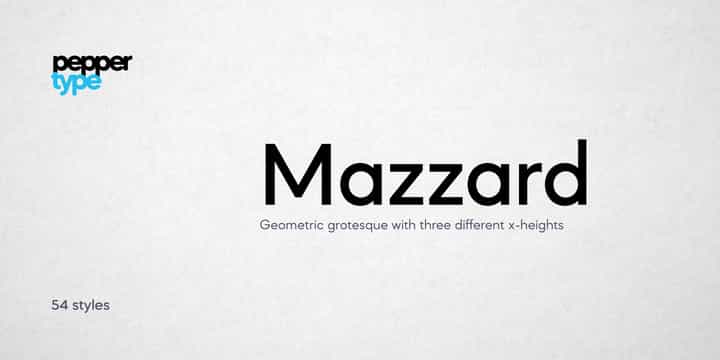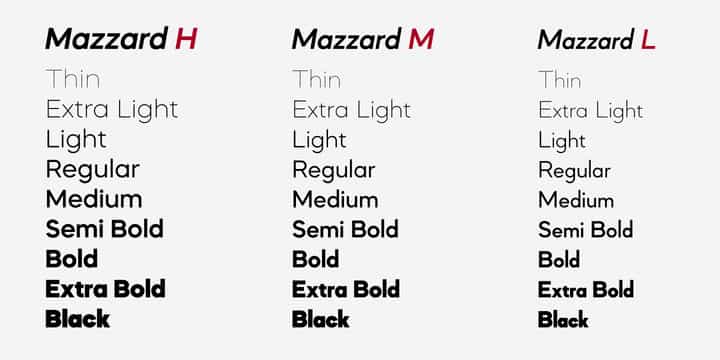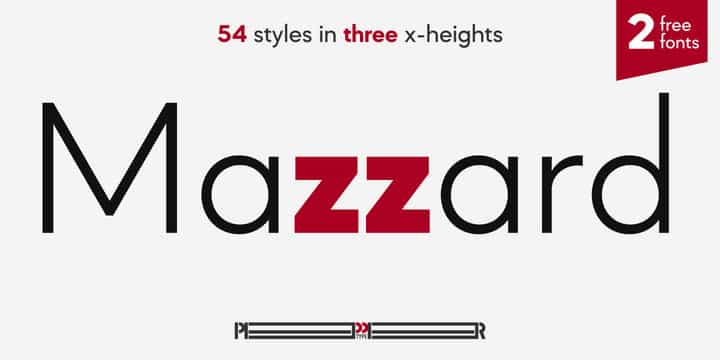
Mazzard is a type of three geometric grotesque fonts with three ranges of x-heights; H, M, and L. This keyboard supports Cyrillic language and has a lot of variation in the options available for the missing data.